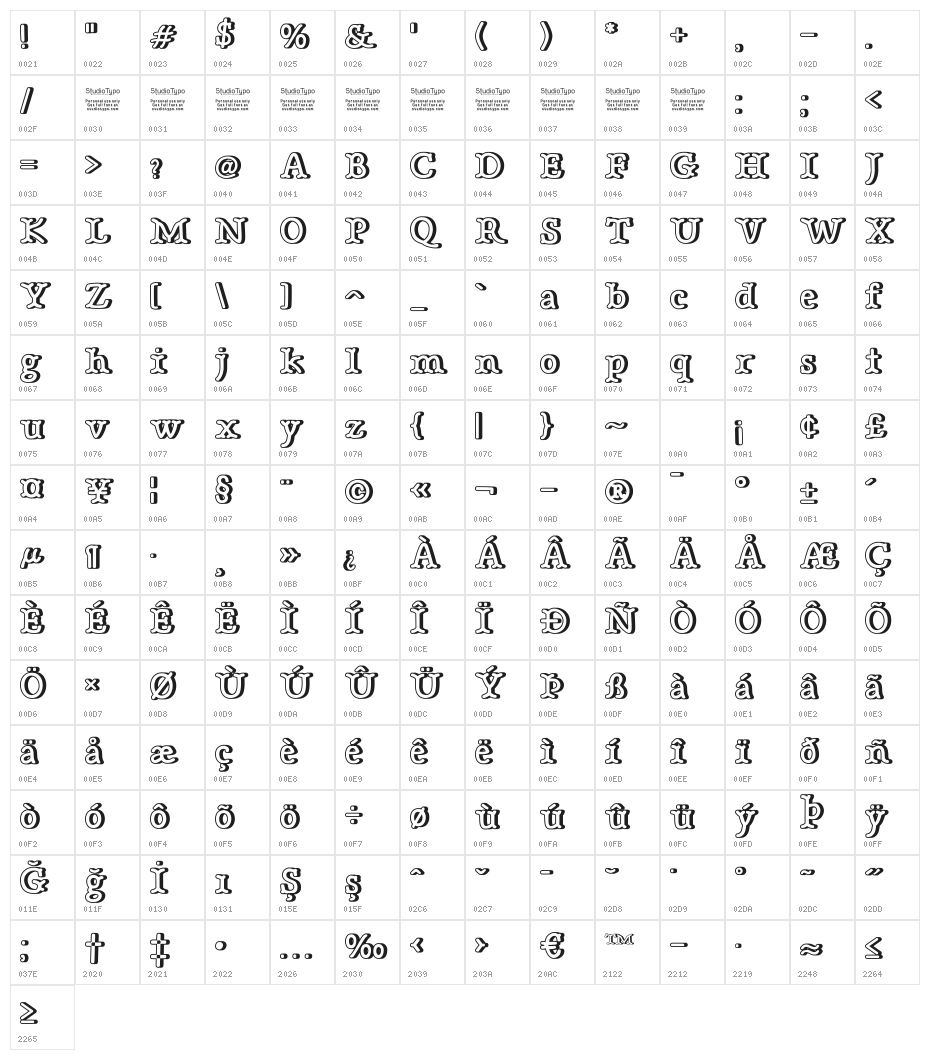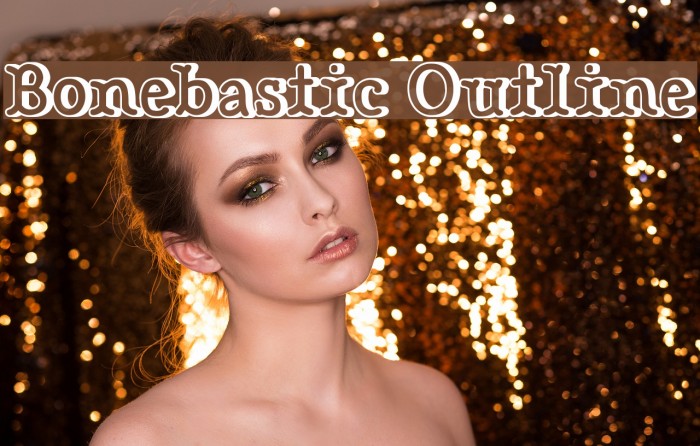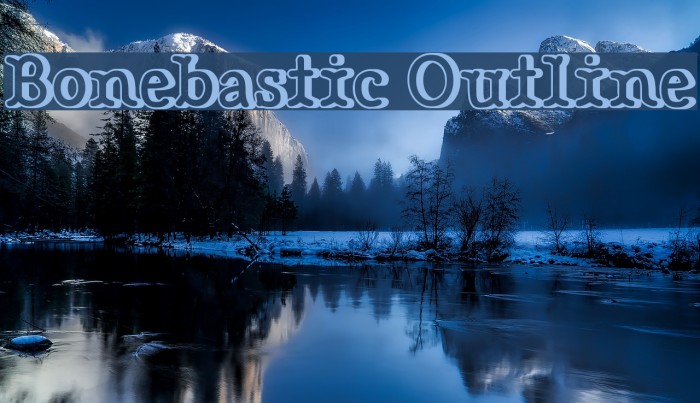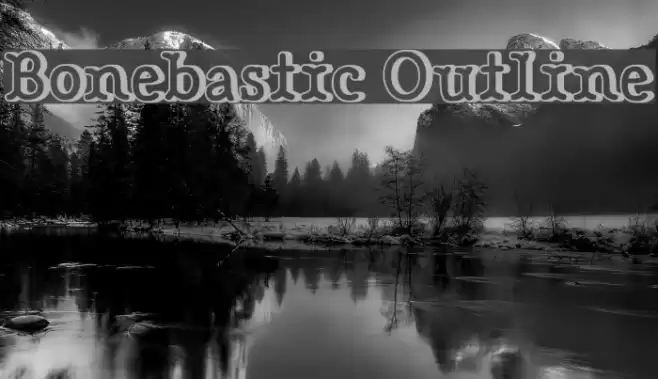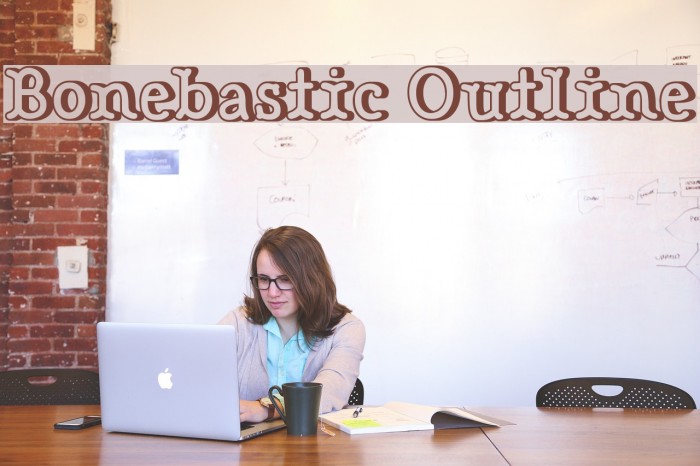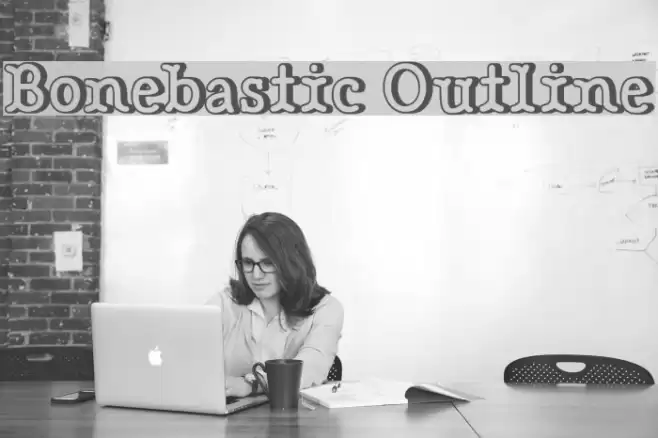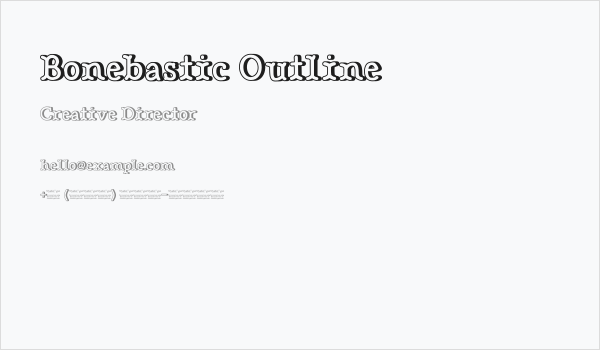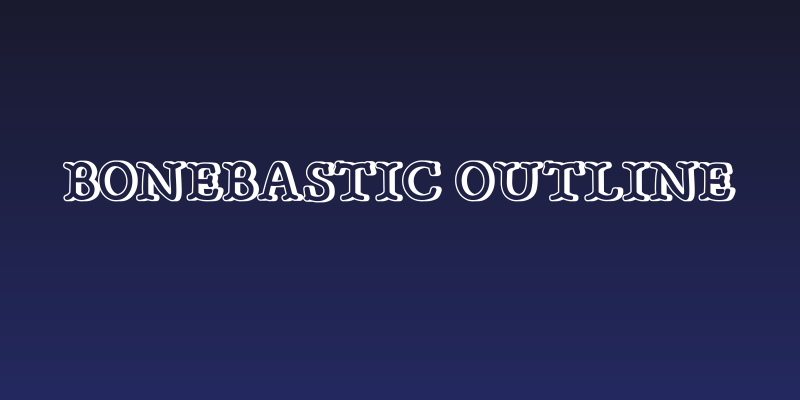
Bonebastic Outline Font
Bonebastic Outline Description
This font features a bold, playful outline style that gives each character a distinctive and eye-catching appearance. The letters are well-defined with a thick border, creating a strong visual impact. The uppercase and lowercase letters maintain a consistent design, with rounded edges and a slightly whimsical flair. The numbers and special characters follow the same outlined style, ensuring uniformity across all glyphs. This font is ideal for designs that require a fun and engaging look, such as children's books, posters, or playful branding.
| Overall Style | Playful, Decorative |
| Proposed Projects | Ideal for children's books, playful posters, branding, and eye-catching headlines. |